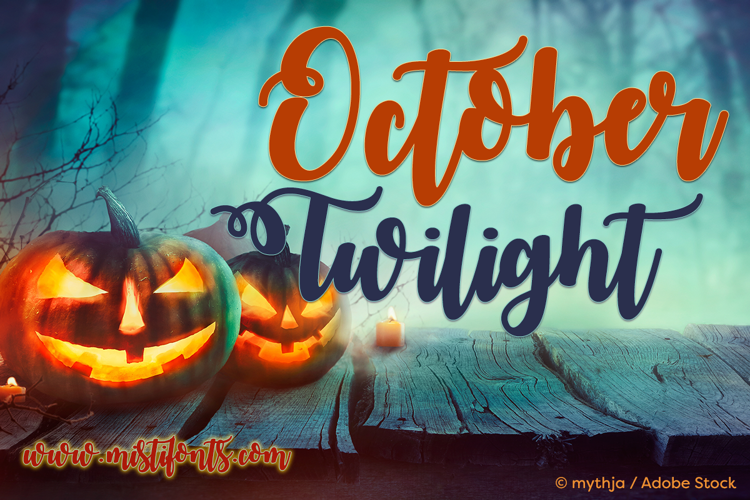
October Twilight Font
Ahhh swirly Halloween fonts ❤ 😃
Nice, not 2 spooky, but kinda elegant! I luv it!
I don't like the upper cases (g,m&n) as it just looks like the lower cases but size up!! 😢
Love your designs! Do you ever do glyphs for them or special characters?
This is my go to font for making the perfect study notes. I love how adorable and cute this is! Definitely my favourite font.
the v is much more like an o in this font of urs
LOVE THIS FONT!! Super cute and is perfect for any cute text! Awesome work on the font. Really shows great characteristics.